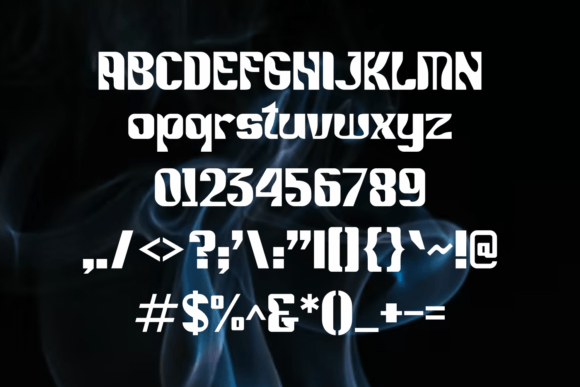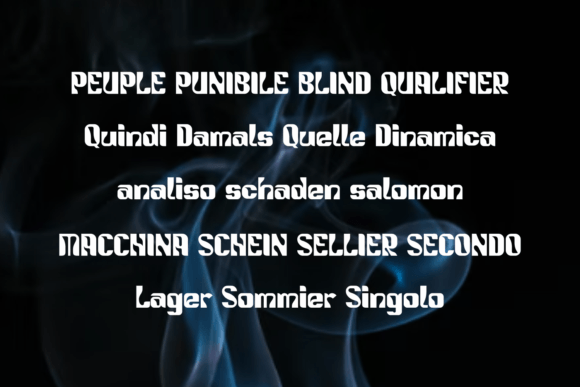
Introduction to Keranos Font
Have you ever stared blankly at your design screen, struggling to come up with the perfect font to elevate your creative project? We’ve all been there – the blank page staring back, the cursor blinking impatiently, and the pressure to deliver something amazing. But what if I told you there’s a game-changing solution to break through that creative block? Enter the Keranos Font, a high-quality design resource that’s about to become your new best friend.
With its unique blend of futuristic and groovy characters, the Keranos Font is the perfect addition to any design project. Whether you’re working on a free download or a high-stakes client project, this font is sure to bring that special something you’ve been missing. And the best part? It’s available for free, making it an accessible design resource for designers of all levels.
Key Features of Keranos Font
- High-quality design: Keranos Font is designed to provide a unique and stylish look for your creative projects, making it an ideal design resource.
- Resolution and size: This font is designed to work at various resolutions and sizes, from small text to large headlines, making it versatile for use in different creative projects.
- Unique characteristics: Keranos Font features a unique blend of modern and vintage elements, making it stand out from other fonts and adding a touch of elegance to your designs.
- Perfect for creative projects: Whether you’re working on a graphic design, digital art, or any other creative project, Keranos Font is an excellent choice due to its high-quality design and versatility.
Honest Review: Keranos Font
I recently came across the Keranos Font while searching for a free download to enhance my creative project. As a designer, I was thrilled to find this high-quality font that offers a unique and elegant aesthetic.
- High-quality design: The Keranos Font boasts a sophisticated and refined look that is perfect for a variety of design projects.
- Transparent background: This feature allows for seamless integration with other design elements, making it a valuable resource for designers.
- Limited font styles: While the Keranos Font is well-designed, it may not offer as many font styles as some other popular fonts.
- No bold or italic variations: This may limit its use in certain design contexts where bold or italic text is necessary.
Overall, I was impressed with the Keranos Font’s high-quality design and transparent background. While it may have some limitations, it remains a valuable resource for designers looking for a unique and elegant font to enhance their creative projects.
Tips for Getting the Most Out of Keranos Font
Use a transparent background to create a modern and sleek design
Experiment with different font sizes and styles to add visual interest
Combine Keranos Font with other design elements, such as images and graphics, to create a unique and eye-catching design
Keranos Font is perfect for a wide range of design projects, including:
Branding and logo design
Social media graphics and marketing materials
Presentations and reports